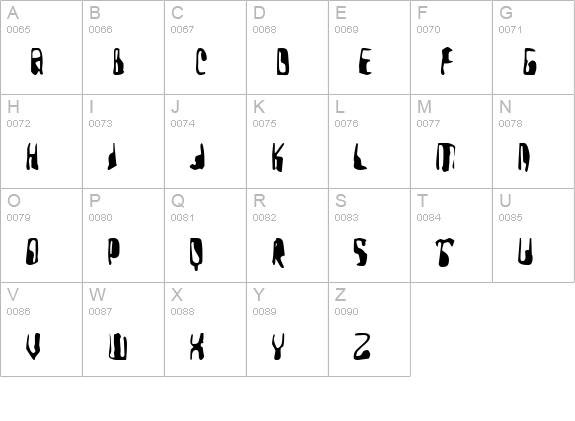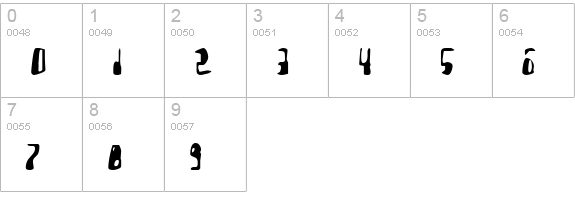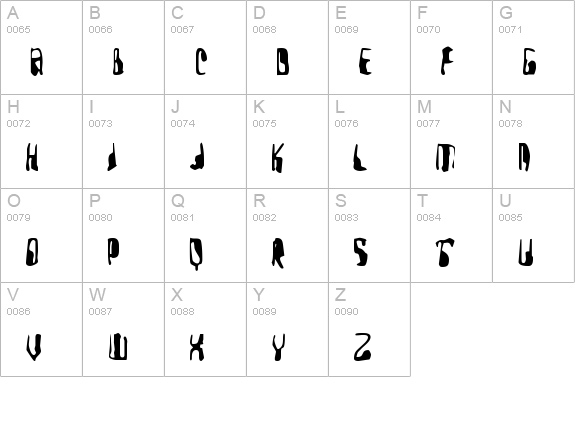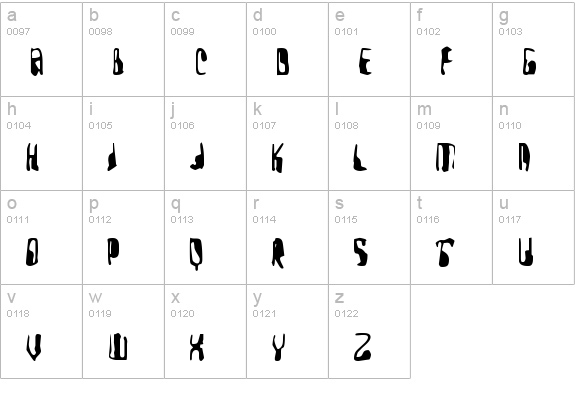
Yellow Pills Font Details
Yellow Pills font is a vibrant and eye-catching display typeface that exudes a sense of energy and playfulness. Its bold, rounded letterforms are reminiscent of retro 1960s design styles, giving it a fun and quirky charm. The smooth curves and unique details of each character make Yellow Pills font perfect for headlines, posters, and branding projects that require a touch of personality. What sets Yellow Pills font apart is that it is available for free download at FontsMarket.com. This means that designers and creatives can easily access this versatile typeface without any cost, making it a valuable addition to their font library. With its cheerful and modern aesthetic, Yellow Pills font is a fantastic choice for projects that need a pop of color and creativity. Download Yellow Pills font today and let your designs shine with its lively and dynamic presence.